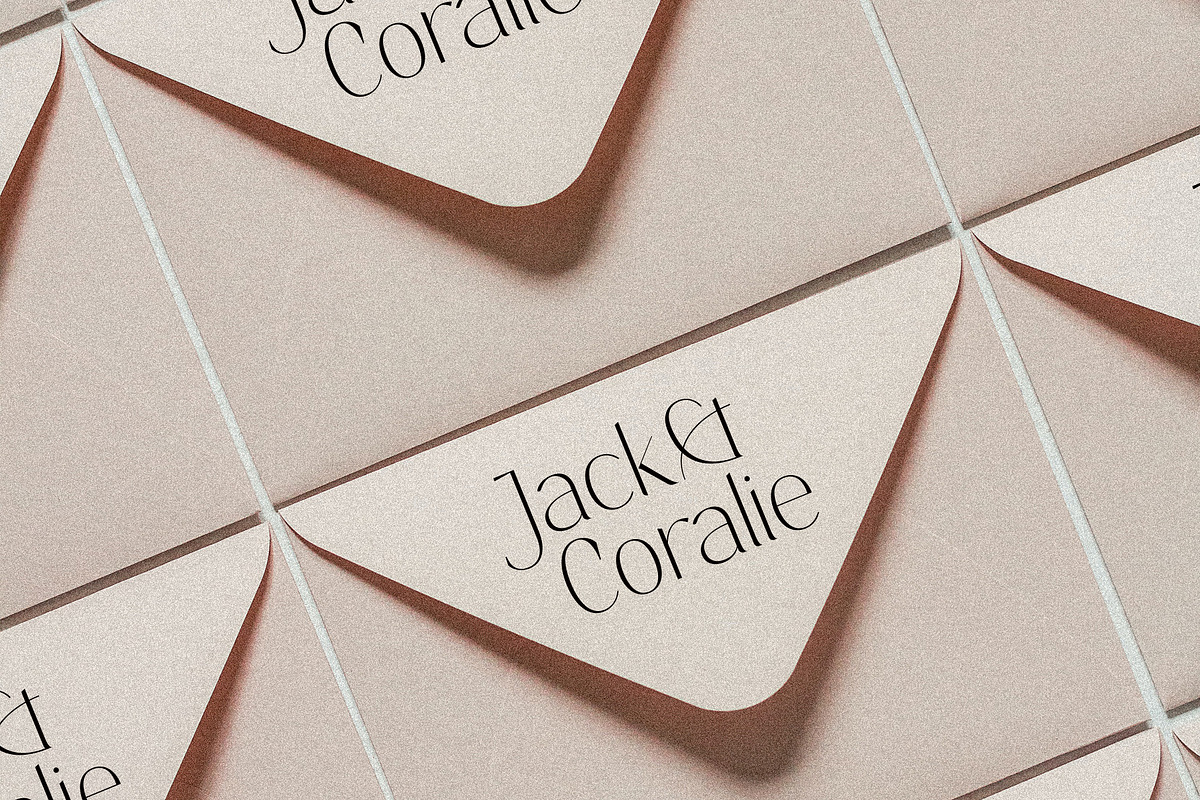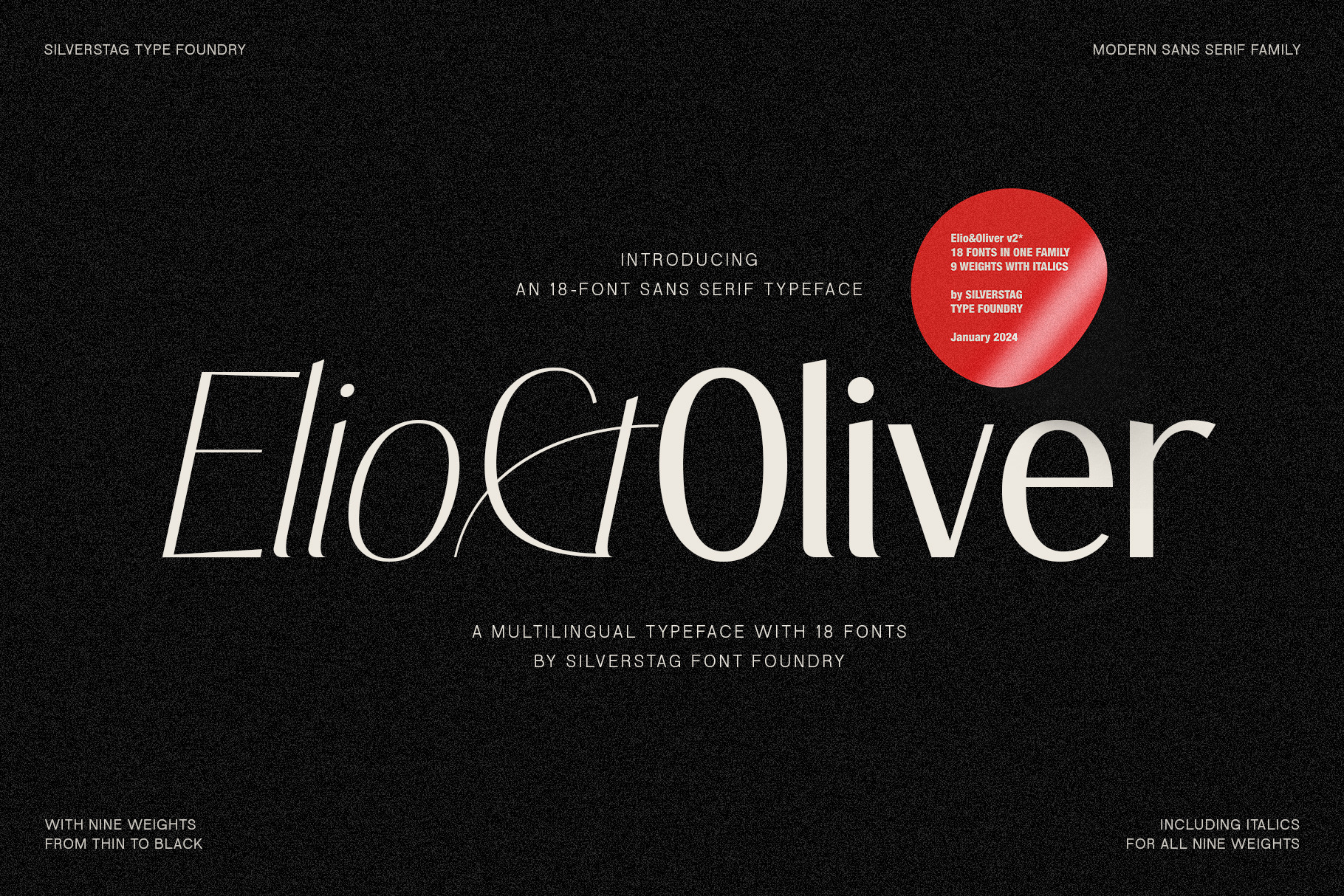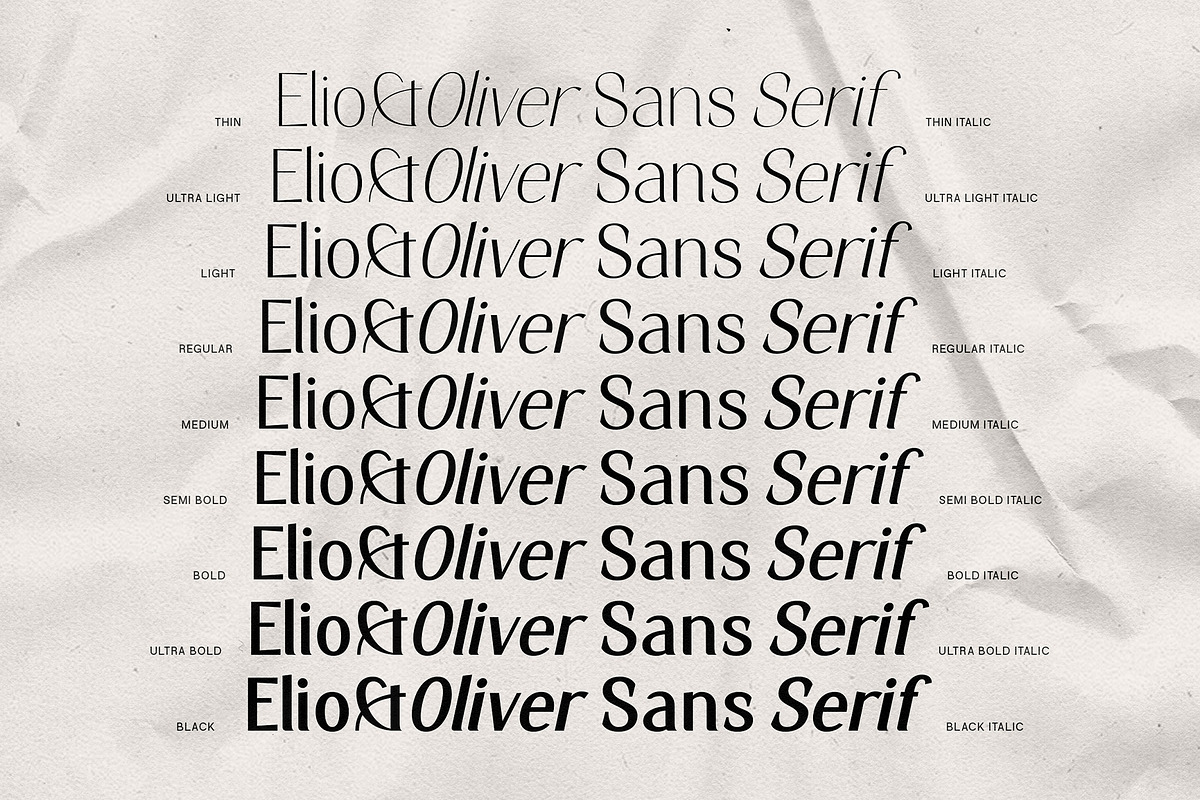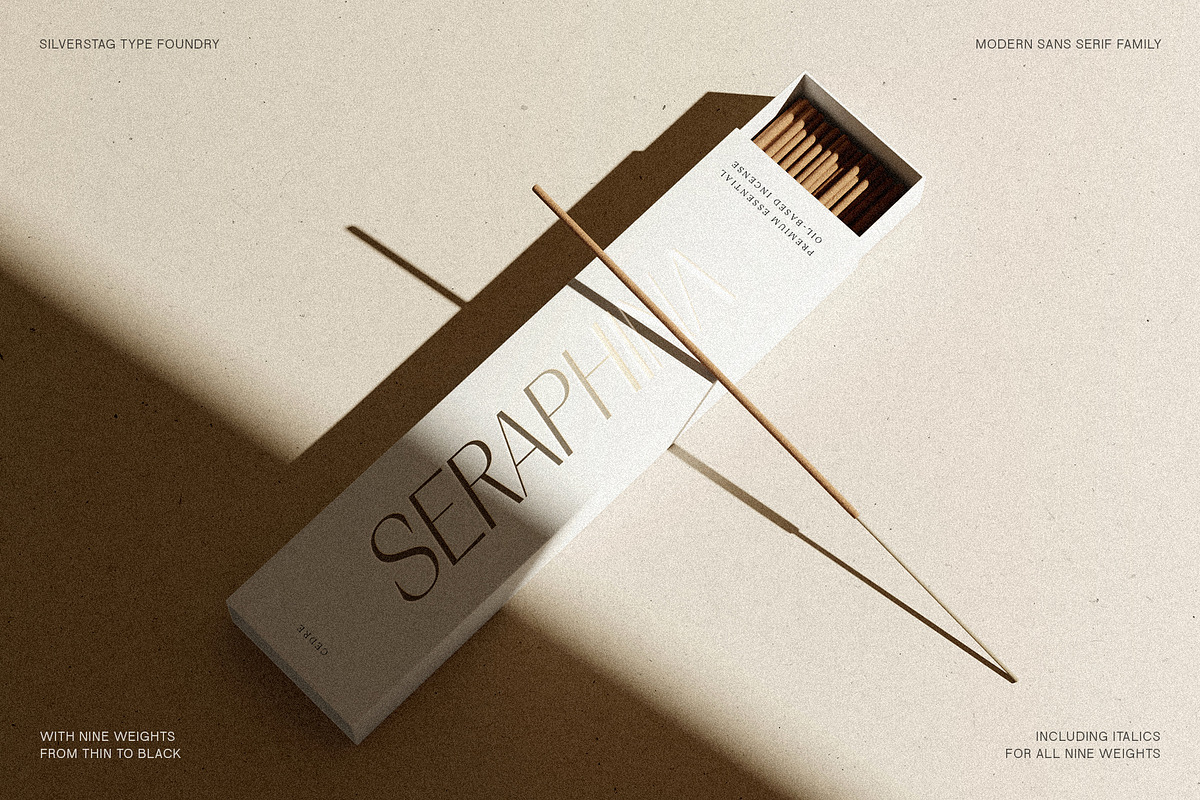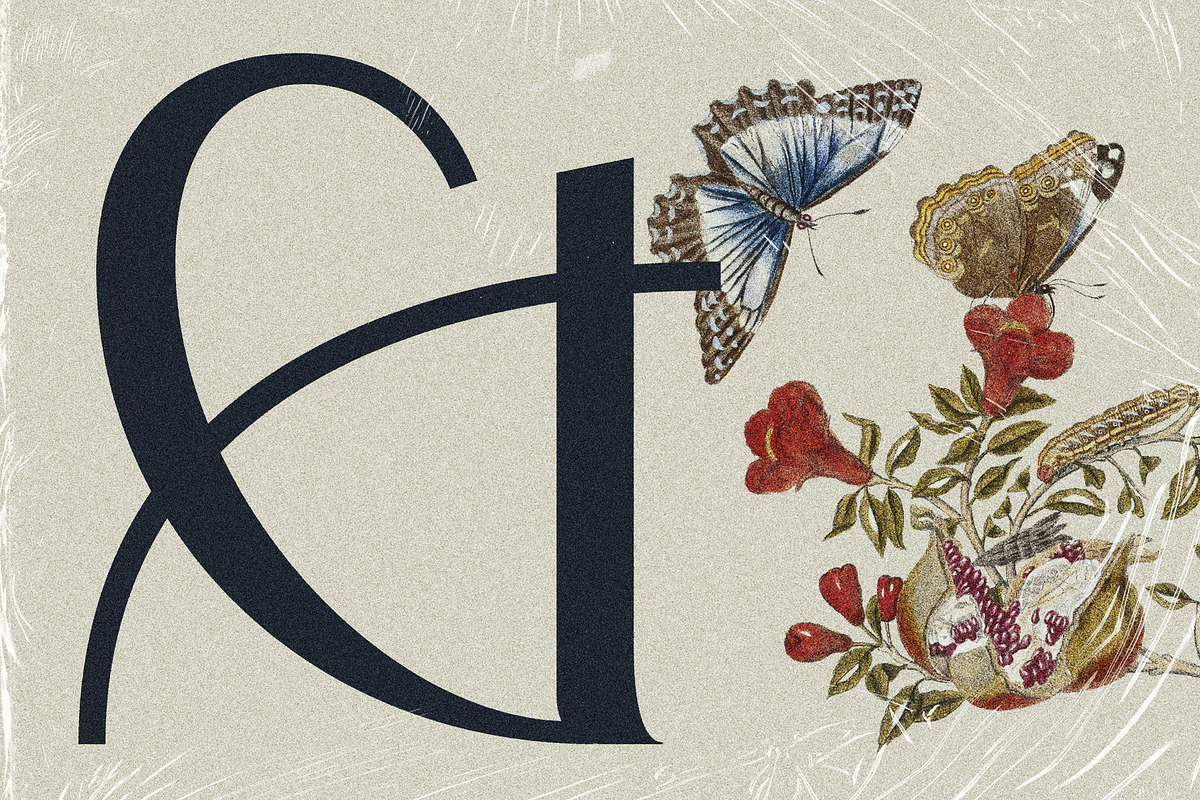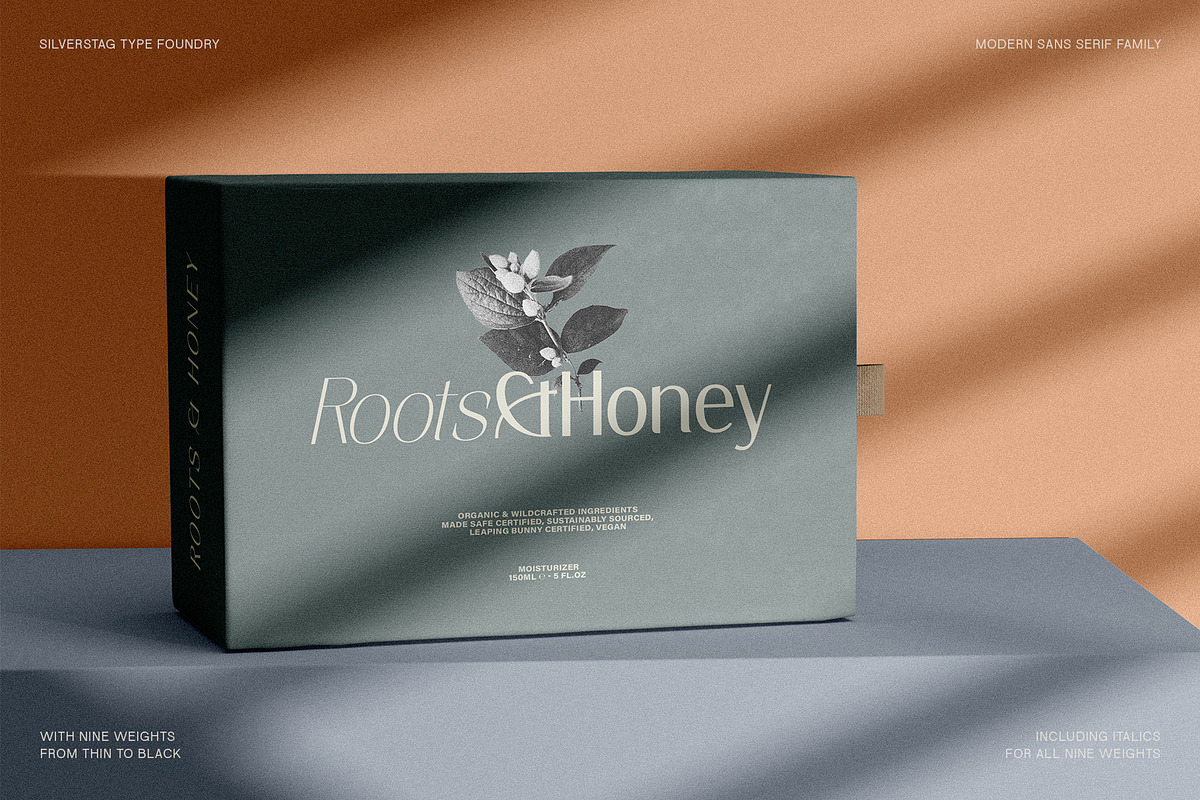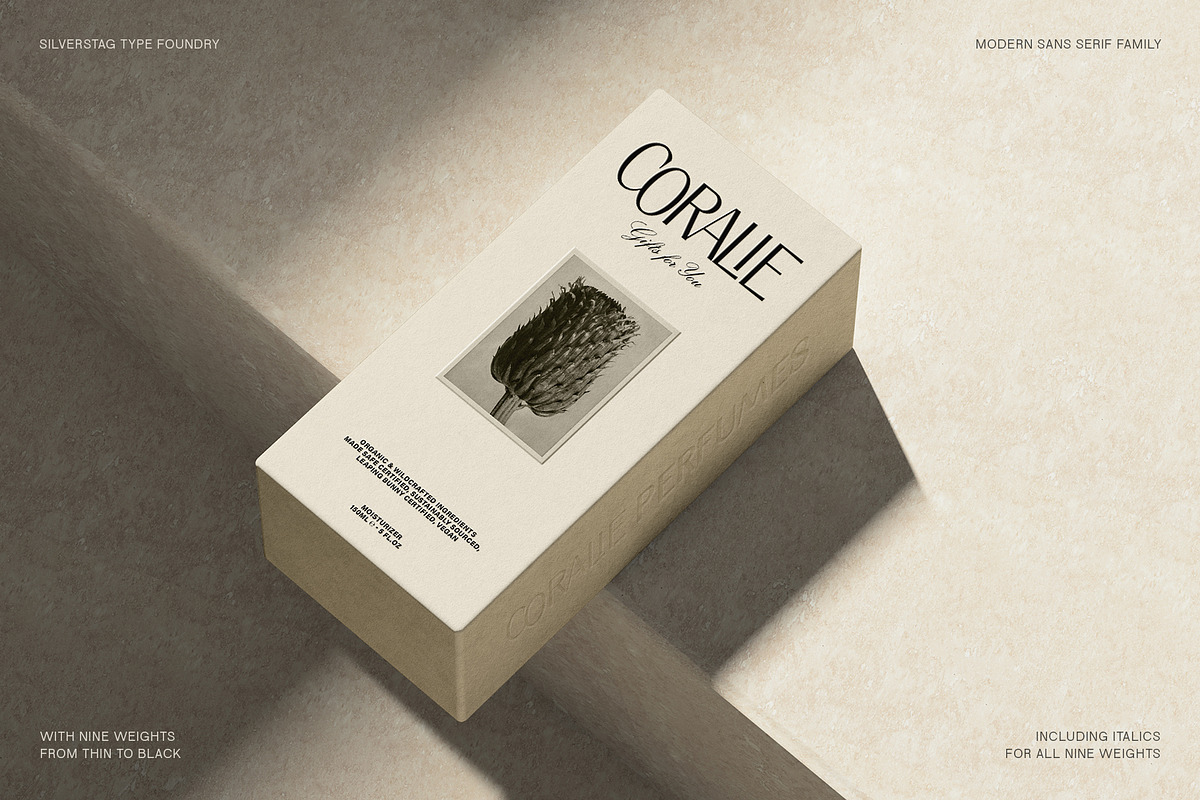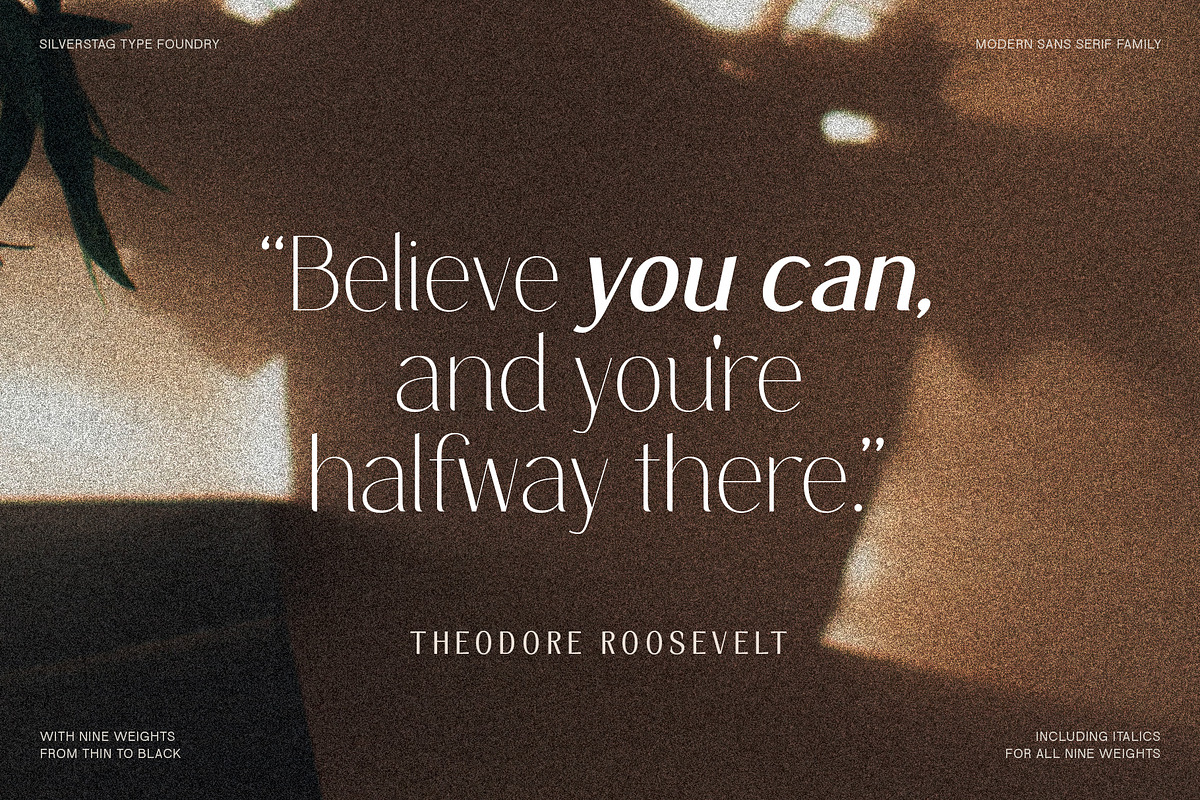
Elio & Oliver - An 18-Font Typeface
Embark on a journey of refined typography with the Elio & Oliver Font Family v2, an exquisite upgrade that seamlessly integrates italics into its nine meticulously crafted weights, so you will get 18 fonts, 9 weights - from Thin to Black, and an italics version for each of them. Inspired by the timeless elegance and undeniable allure of Italy, this sans serif typeface captures the essence of sophistication and refinement, now enhanced with a touch of expressive flair.
Italic Magnificence - A Symphony of Style
The new italics bring a captivating dimension to the Elio & Oliver family, adding a graceful fluidity and dynamic rhythm to your designs. Each italic weight complements its corresponding roman counterpart, creating a cohesive and harmonious visual aesthetic.
Unveiling the Full Spectrum of Elegance
From the delicate Ultra Light to the bold intensity of Black, Elio & Oliver v2 offers an expansive range of weights, allowing you to tailor your designs to any project or mood. Whether you're crafting elegant editorial layouts, crafting impactful branding materials, or crafting sophisticated digital interfaces, this font family seamlessly adapts to your creative vision.
Language Versatility for Global Impact
Recognizing the power of language diversity, Elio & Oliver v2 boasts full language support, enabling you to communicate your message effectively to a global audience. With seamless compatibility across English, Italian, French, Spanish, and beyond, this font embraces the richness and cultural nuances of diverse languages.
Captivate Attention, Leave a Lasting Impression
Elio & Oliver v2 elevates your creative projects to new heights of sophistication, infusing them with an aura of refined elegance. Its graceful curves, captivating italics, and versatile weights will effortlessly capture attention and leave a lasting impression on viewers.
Step into the Realm of Timeless Design
Immerse yourself in the world of Elio & Oliver v2, where every letter narrates a story and every curve embodies the essence of impeccable design. Let the spirit of Italian chicness and timeless elegance guide your creative endeavors.
Unleash the Power of Elio & Oliver v2 and Elevate Your Designs
Discover Elio & Oliver v2 and transform your creative projects into masterpieces of timeless elegance. Join the ranks of designers who elevate their work with this exquisite typeface and unleash the power of sophisticated typography.